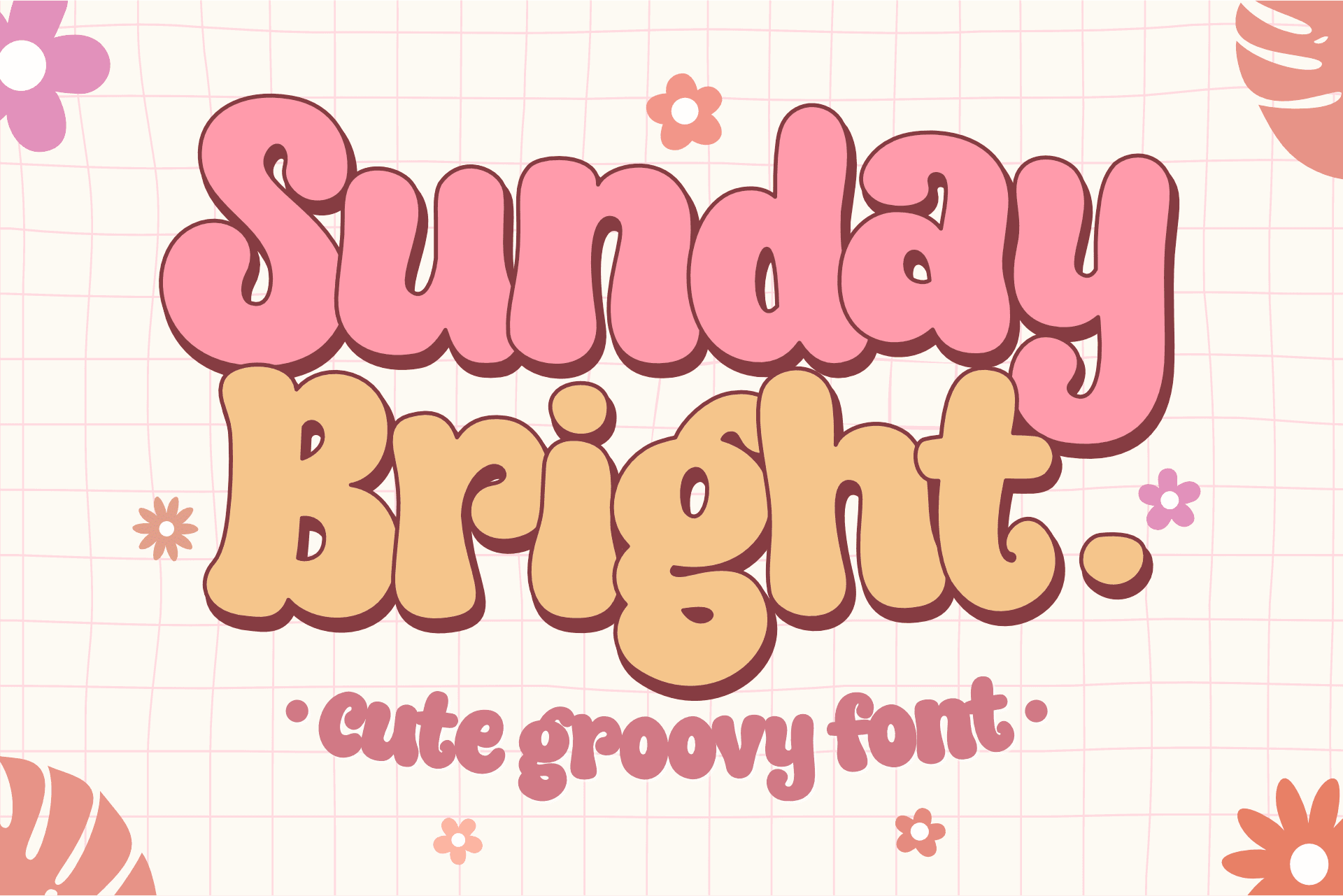
Unlock Your Creativity with Sunday Bright Font: A Playful Touch to Your Designs
In the vibrant world of graphic design, the right font can transform a simple layout into a captivating masterpiece. Enter Sunday Bright, a delightful groovy font that ch...